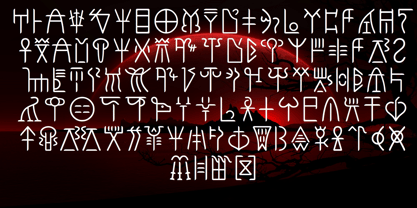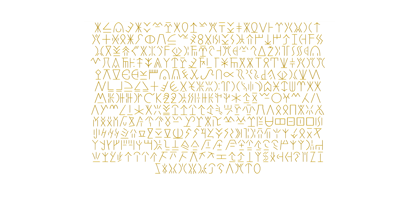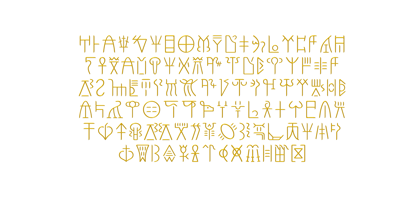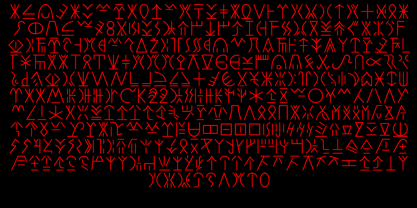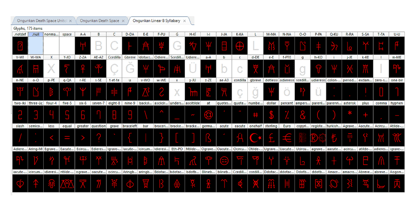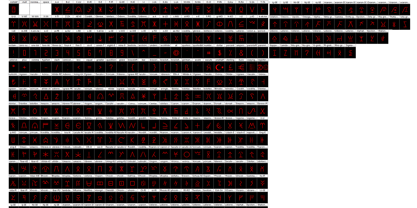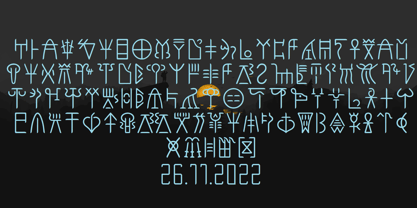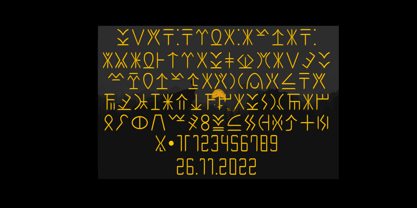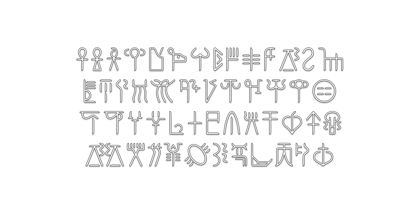
Ongunkan Cyprus Writings
by Runic World Tamgacı
The Ongunkan Cyprus Writings Font Family was designed by Osman Nuri ALKAN and published by Runic World Tamgacı. Ongunkan Cyprus Writings contains 2 styles and family package options. More about this family
Linear B script was the writing system of the Mycenaean civilization of the Bronze Age Mediterranean. The syllabic script was used to write Mycenaean Greek from c. 1500 to c. 1200 BCE. It was deciphered by Michael Ventris in 1952, and so the script has provided invaluable insights into the Mycenaean culture and its interaction with contemporary Mediterranean civilizations. Linear C is yet another undeciphered script from the Bronze Age. It was used from 1550 BCE to 1050 BCE on the island of Cyprus and a little in the Levant. Unlike most of the Bronze Age civilizations, the island flourished after the collapse. The language the script corresponds to is completely unknown. It can be speculated that it represents the Keftiu (“Minoan”) language or the indigenous Cypriot language, Eteocypriot. However, neither has been proven as of now. Linear C, as the name implies, is related to Linear A and B. Specifically, Linear C is descendent from Linear A, making it a sister script of Linear B. The script was later replaced by the Cypriot syllabary for Greek and Eteocypriot. Due to the lack of inscriptions, it is incredibly hard to figure out the language it was representing. There are only around 2.500 inscriptions found, unlike Mycenaean Greek which had around 30.000 examples. Here are the letters that we believe are represented.